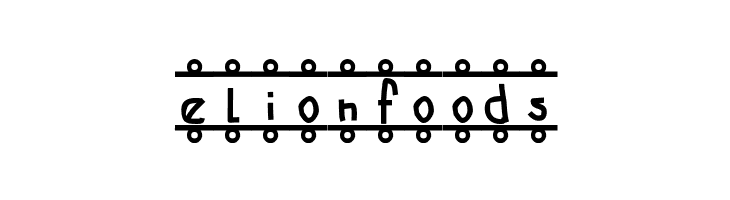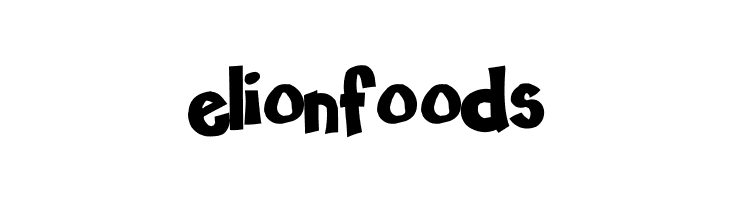
A bold, playful font with a quirky, vintage horror style.
A bold, hand-drawn font with an energetic, graffiti-inspired style.
A bold, italic font with an edgy, graffiti-inspired style.
A modern, light sans-serif font with a clean and minimalistic design.
A bold, geometric font with a modern and industrial style.
A bold, edgy font with sharp angles and a hand-drawn appearance.
A vintage cursive font with elegant, flowing strokes and a hand-drawn feel.
A clean, modern sans-serif font with uniform stroke width and geometric letterforms.
A bold slab serif font with high contrast and a classic yet modern appeal.
A playful, hand-drawn font with circular decorative elements.
A whimsical, hand-drawn font with playful and irregular strokes.
A playful, casual handwritten font with irregular strokes and a whimsical feel.
A playful, bold, and geometric font with a modern style.
A bold, star-patterned decorative font ideal for festive designs.
A dynamic, handwritten-style font with artistic flair.
A bold, geometric font with a modern and futuristic design.
A rugged, organic font with jagged, irregular characters.
A playful, hand-drawn font with quirky, irregular characters.
A bold, playful font with rounded edges and a hand-drawn feel.
A hand-crafted, calligraphic font with bold, irregular strokes.
A whimsical, hand-drawn font with medium stroke weight and playful character.
A bold, spooky font with a blocky, eerie design ideal for Halloween themes.
A playful, hand-drawn font with bold, rounded characters and a whimsical style.
A playful, bold font with exaggerated curves and angles, perfect for dynamic designs.
A bold, playful handwritten font with a friendly and informal style.